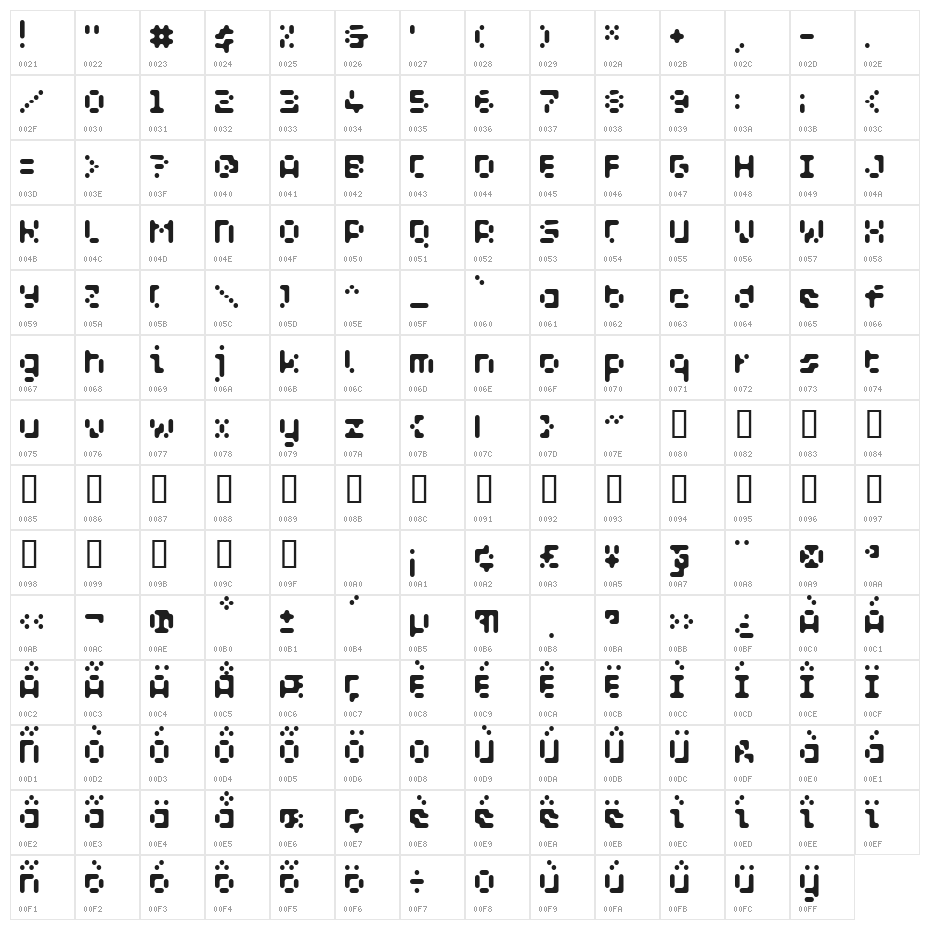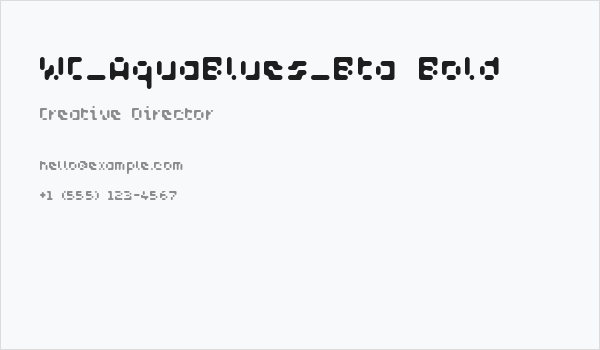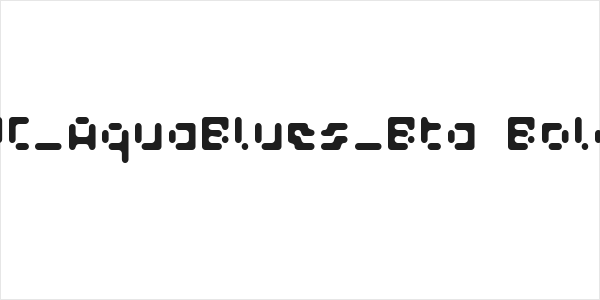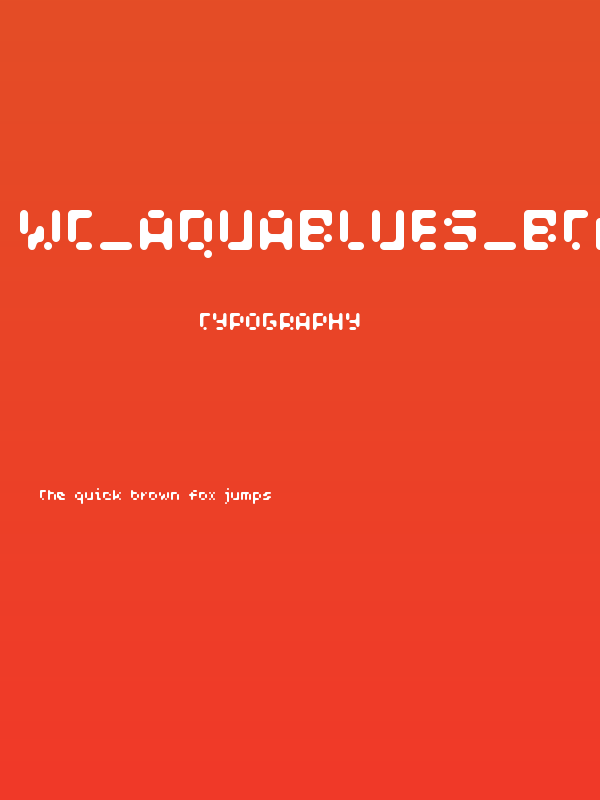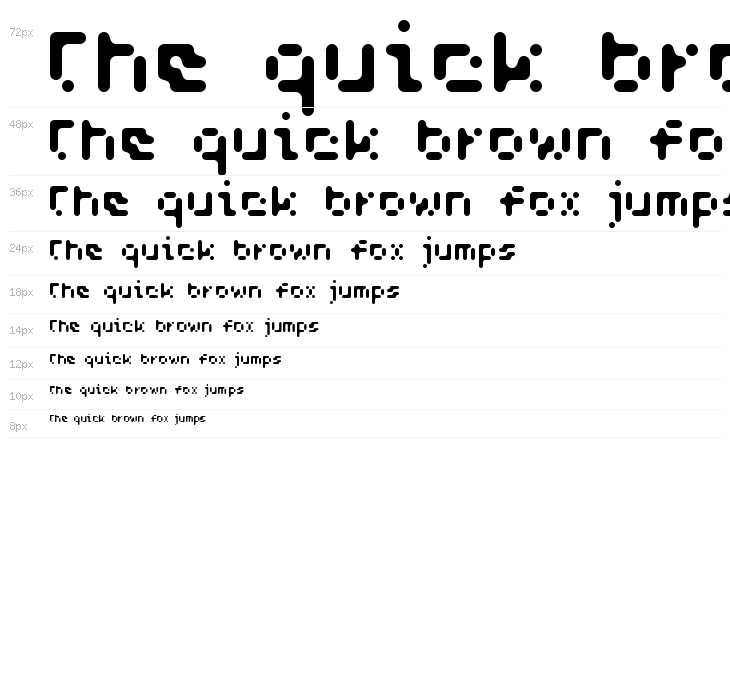
WC_AquaBlues_Bta Bold Font
WC_AquaBlues_Bta Bold Description
This font features a unique, futuristic design with bold, rounded shapes and distinct dot patterns within each character. The letters are constructed with a combination of solid and dotted elements, creating a digital or tech-inspired aesthetic. The uppercase and lowercase letters maintain a consistent style, with a playful yet structured appearance. Numbers and special characters follow the same design principles, ensuring uniformity across the typeface. The overall look is modern and eye-catching, suitable for projects that require a standout, innovative font.
| Proposed Projects | This font is perfect for technology branding, digital media, video game titles, and futuristic-themed posters. |